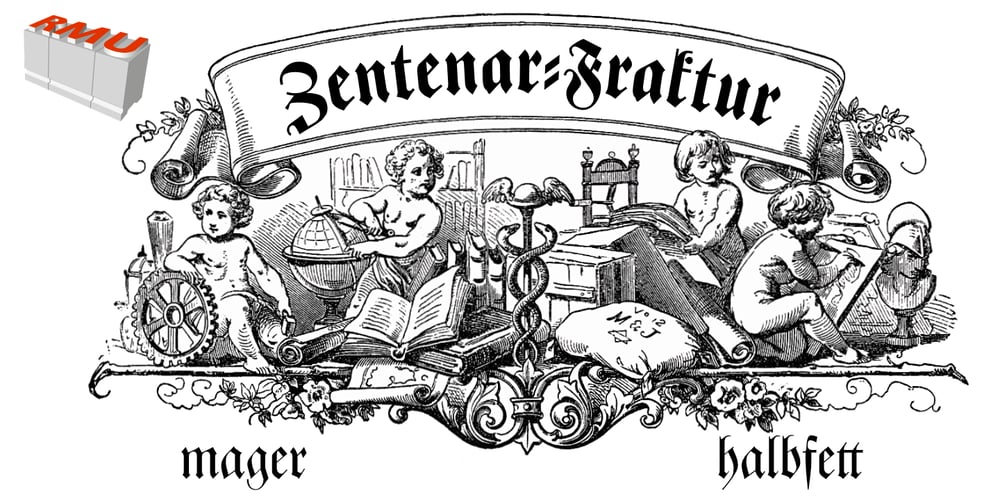
Zentenar Fraktur
Zentenar Fraktur font
Zentenar Fraktur Font Family was designed by Ralph M. Unger and published by RMU. Zentenar Fraktur contains 2 styles and family package options. The name of this blackletter font was chosen due to the centennial of the Bauer Foundry, Frankfurt am Mai, in 1937. Ernst Schneidler probably created then the most beautiful of all fraktur fonts. They are the fruit of countless calligraphic drawings and of many years of professional experiences. Zentenar Fraktur became in its time the workhorse among German blackletter fonts. To access all ligatures in both styles, it is recommended to activate Standard and Discretionary Ligatures. The round s can be reached by typing the # key, and the combination N-o-period plus the OT feature Ordinals gives you the Numero sign.